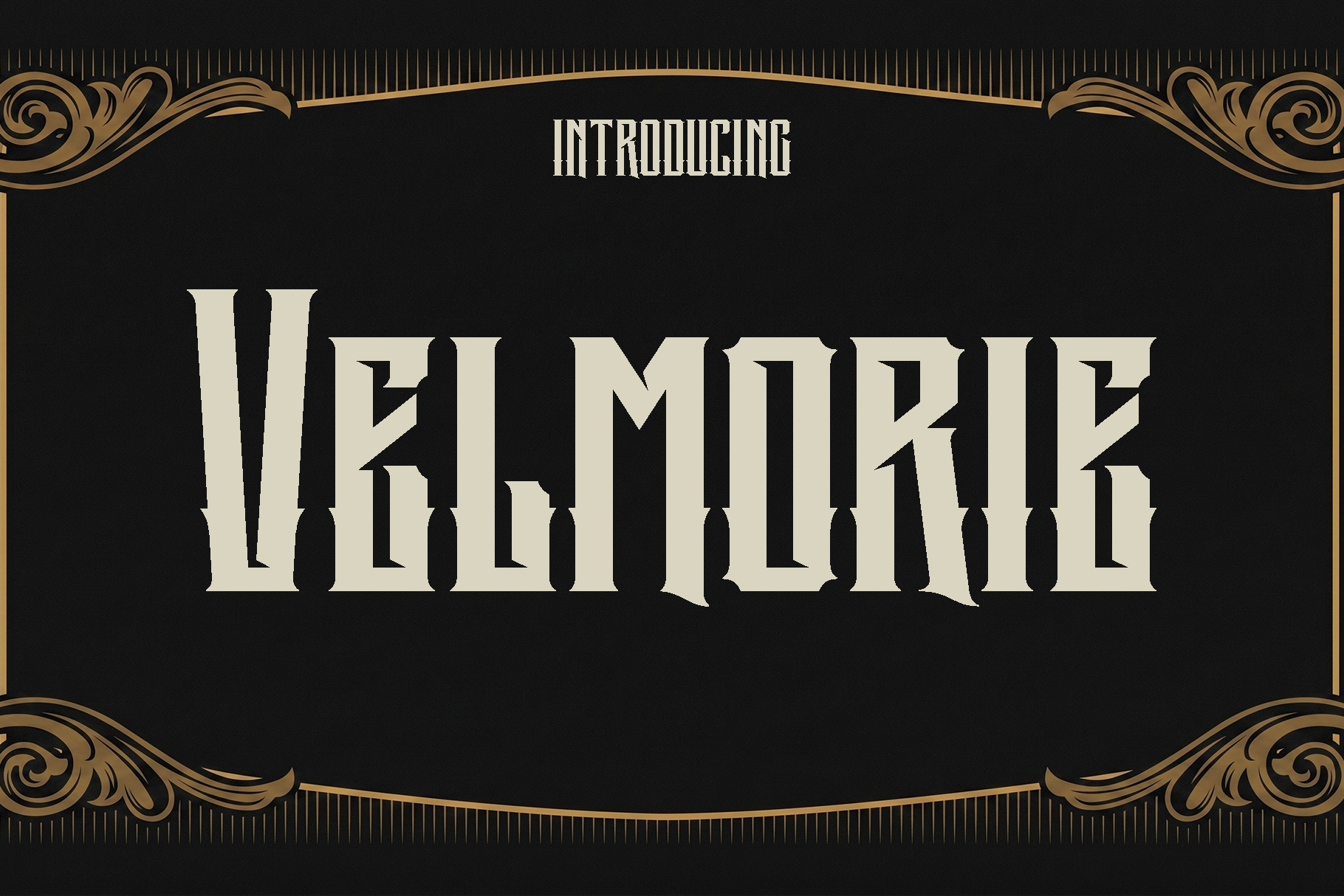
Velmorie - Vintage Metal Font
Velmorie is a bold vintage display font created with a strong rebellious spirit and classic underground energy. Originally inspired by old school band aesthetics and heavy graphic culture, Velmorie carries a raw artistic character that instantly stands out. Its sharp details, dramatic curves, and expressive forms give every word a powerful personality, making it perfect for designs that demand attention and attitude.
Designed for creative projects with a bold identity, Velmorie shines beautifully in band logos, merchandise, album covers, t shirt graphics, posters, and streetwear branding. The font captures the essence of vintage rock, metal, and alternative visual styles while maintaining enough versatility for modern design applications. Whether used in large headlines or custom graphic compositions, Velmorie delivers an impactful and unforgettable appearance.
Velmorie feels dark, artistic, and energetic. It brings a handcrafted vintage atmosphere that blends nostalgia with modern creativity, allowing designers to create visuals that feel authentic and expressive. Every character is carefully shaped to enhance the dramatic look of your typography while maintaining strong visual balance.
If you are looking for a typeface that adds bold emotion, underground culture, and striking style to your work, Velmorie is the perfect choice for your creative collection.
Velmorie Font Features:
• Bold vintage display style
• Perfect for band logos and merchandise
• Strong artistic and alternative character
• Uppercase and lowercase
• Unique punctuation, numbers, and symbols
• OpenType features
• Suitable for posters, album covers, apparel, and branding projects